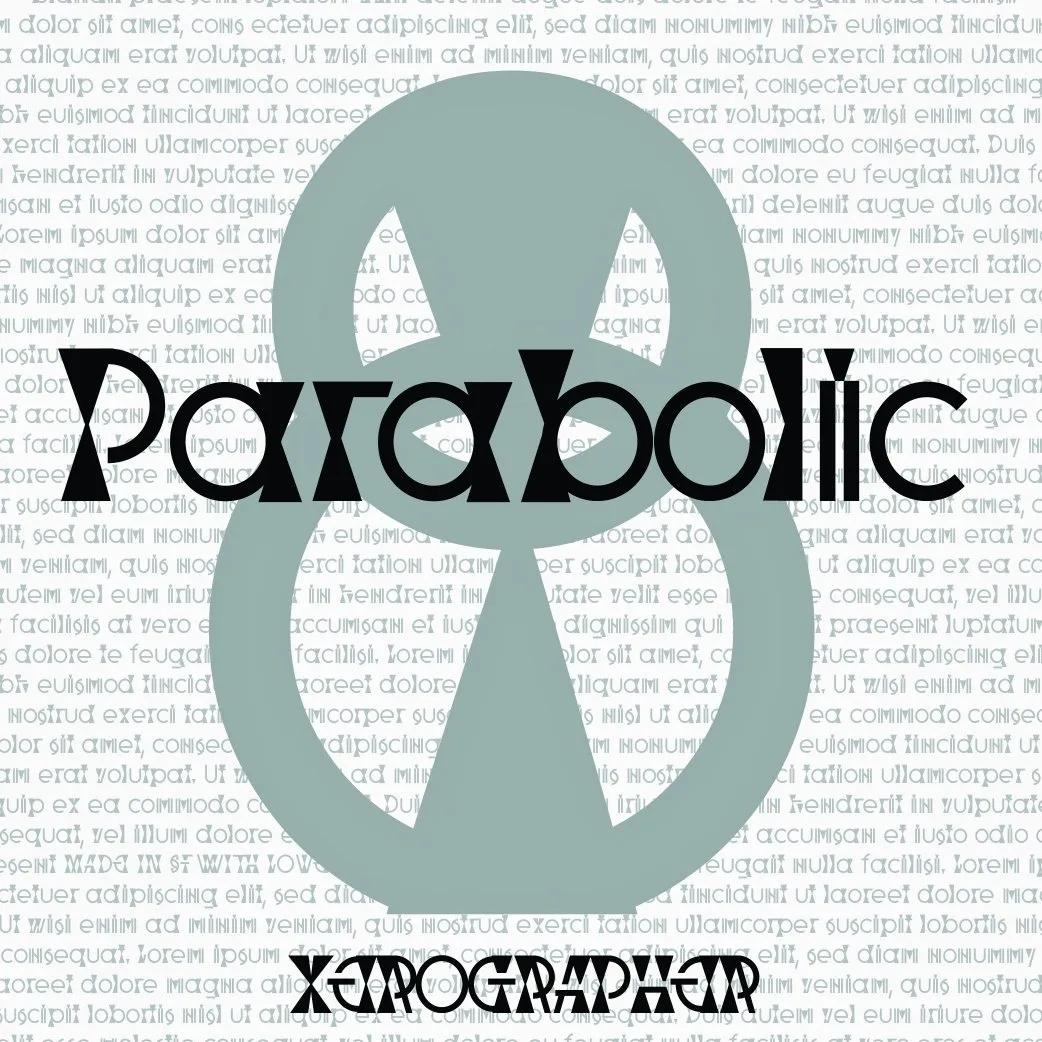
Have a logo, brand or event you need a little retro psychedelia? Consider downloading and trying our new font at Xerographer Fonts! It's available on dafont. https://www.dafont.com/parabolic.font